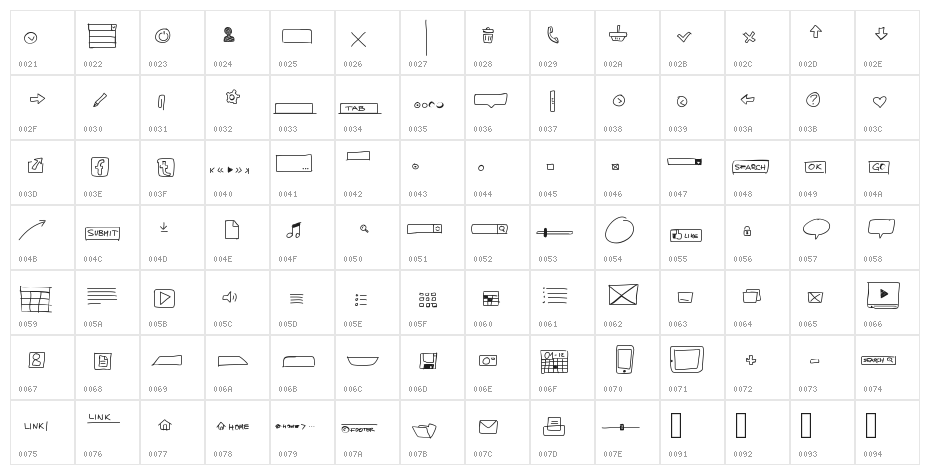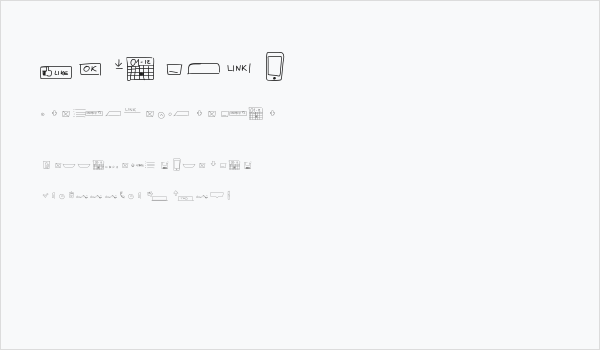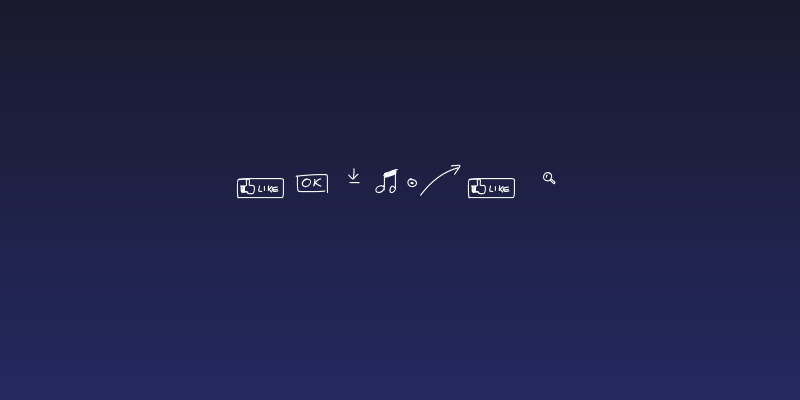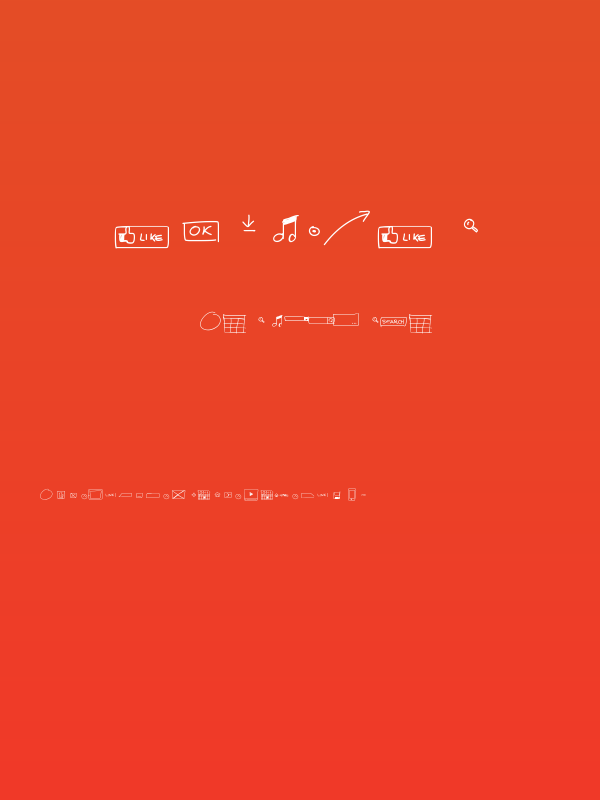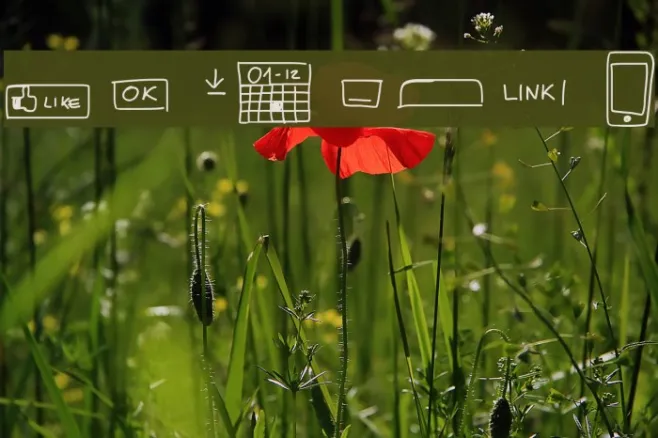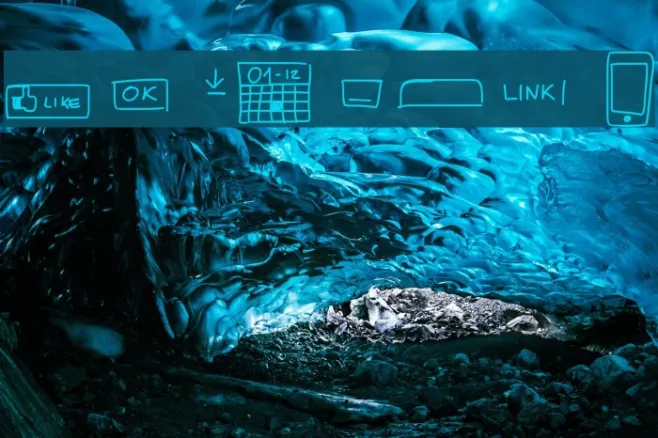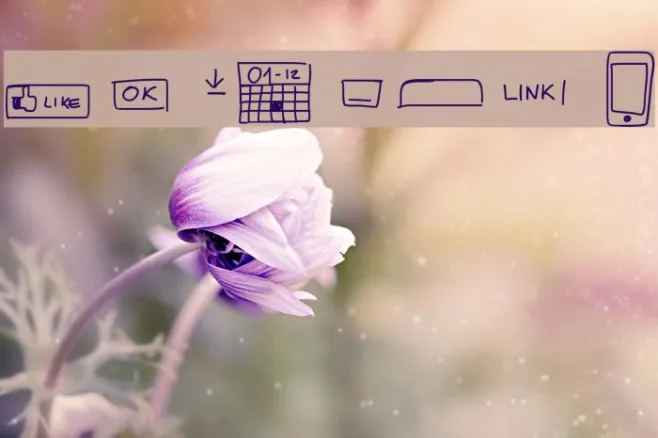
UIMockup Font
UIMockup Description
A playful, hand-drawn style font with irregular lines and a casual, sketch-like appearance. Characters are uneven, mimicking marker or pen strokes, and the overall look is informal and friendly, resembling quick wireframe or mockup annotations.
| Overall Style | Decorative, Playful, Informal |
| Use Case | Mockups, Wireframes, Informal notes, Creative projects |
| Proposed Projects | UI wireframes, app mockups, creative presentations, educational materials, children's projects, informal branding. |